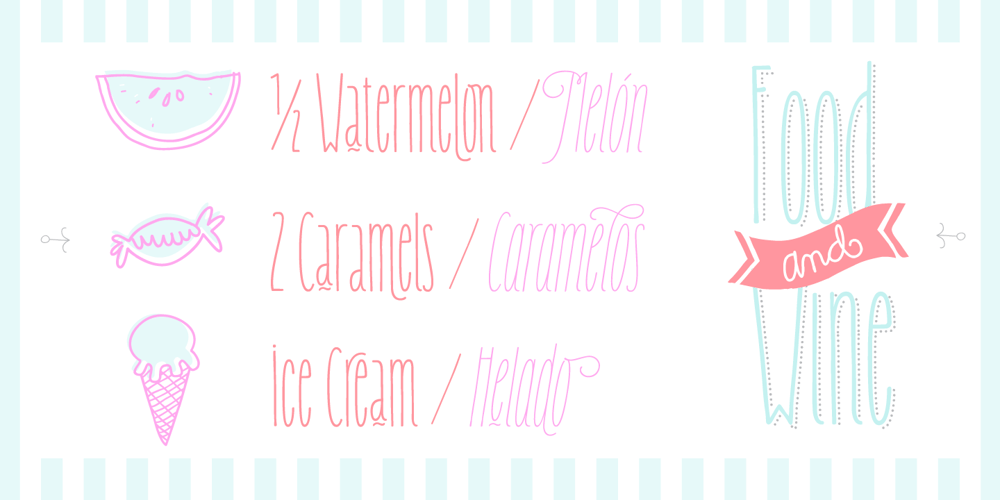
Carlino Font Family was designed by Cecilia Vizan and published by Pío Pío. Carlino contains 12 styles and family package options. Carlino is named after the cutest dog on earth. Why? Because it’s the cutest font ever made. Especially intended for stationery use, it’s loaded with lots of alternates and ligatures, not only in the lowercase but in the uppercase. All of them are Open-Type programmed, so the possibilities of having something unique are endless. Following nowadays trend, Carlino is a multi-layered font: shades, holes and dots were made to work alone or all together with fantastic results! The way it works is so easy that It’s impossible not to enjoy it: Just type a word; then the same one set in another style and voilà! The font has also a lot of sweet ornaments to embellish your projects. Find inside: hearts, fleurons, party icons, flags, and the funniest animals. To accompany Carlino, there’s nothing better than Carlino Capitals. Its cute flavor makes everything more lovely. Have fun with Carlino and oh! don’t forget to feed this little pug or it will bark all day long! Special thanks to Maximiliano Sproviero, whose advice helped me make this dream come true.